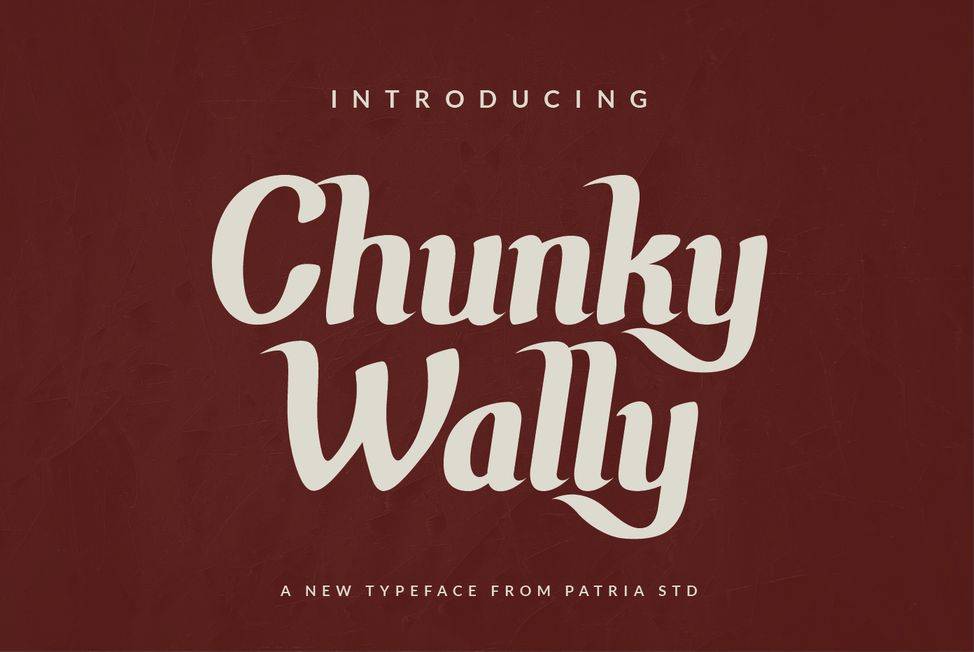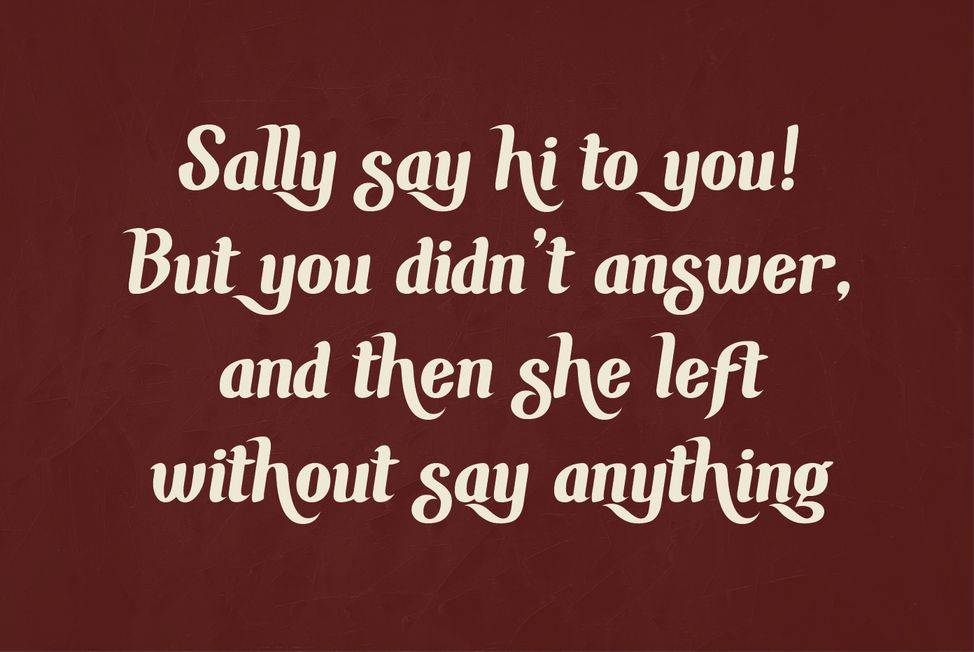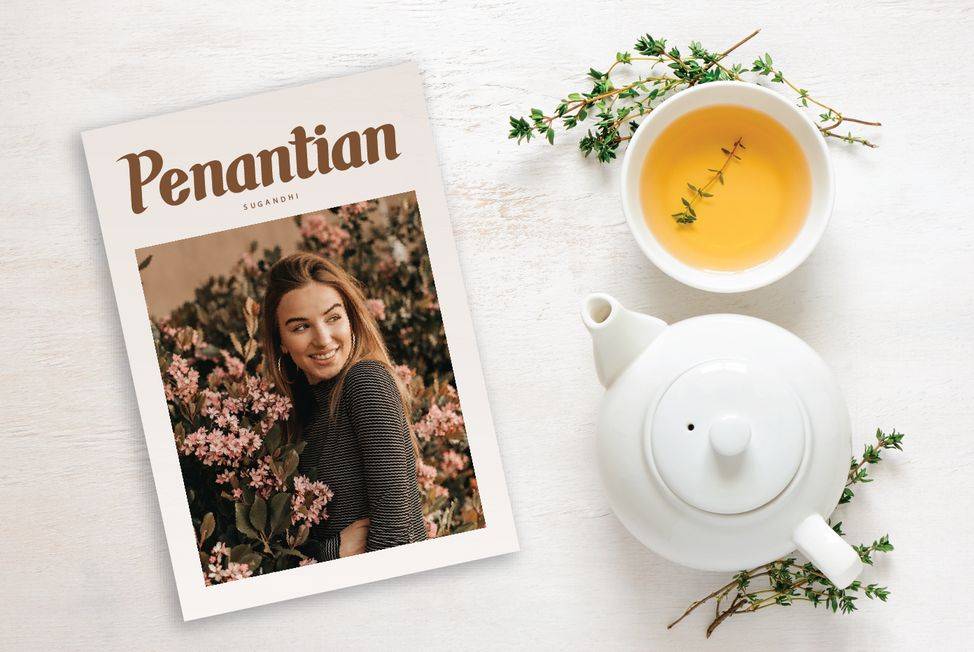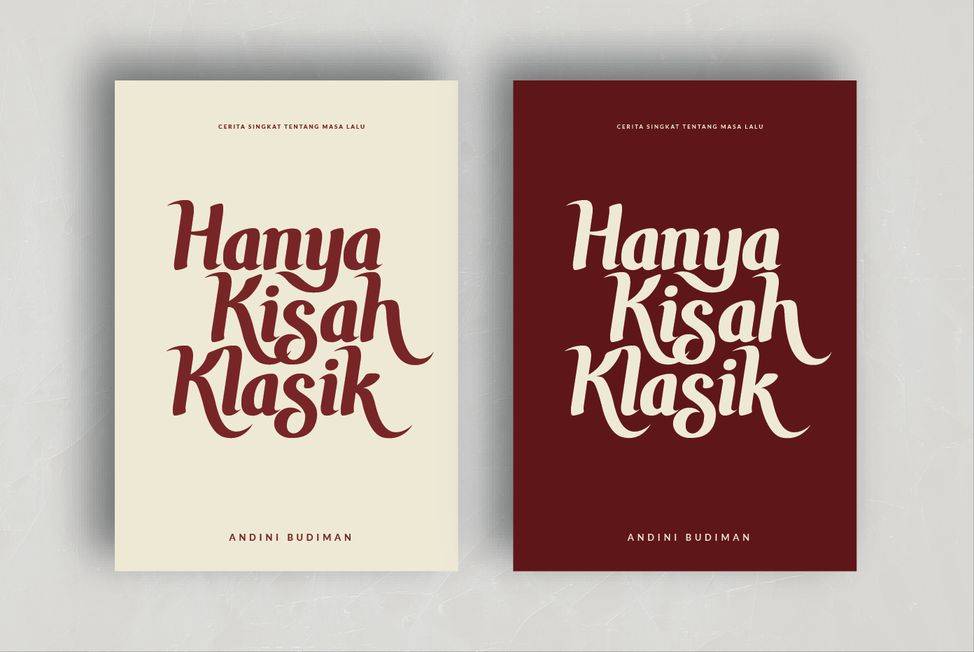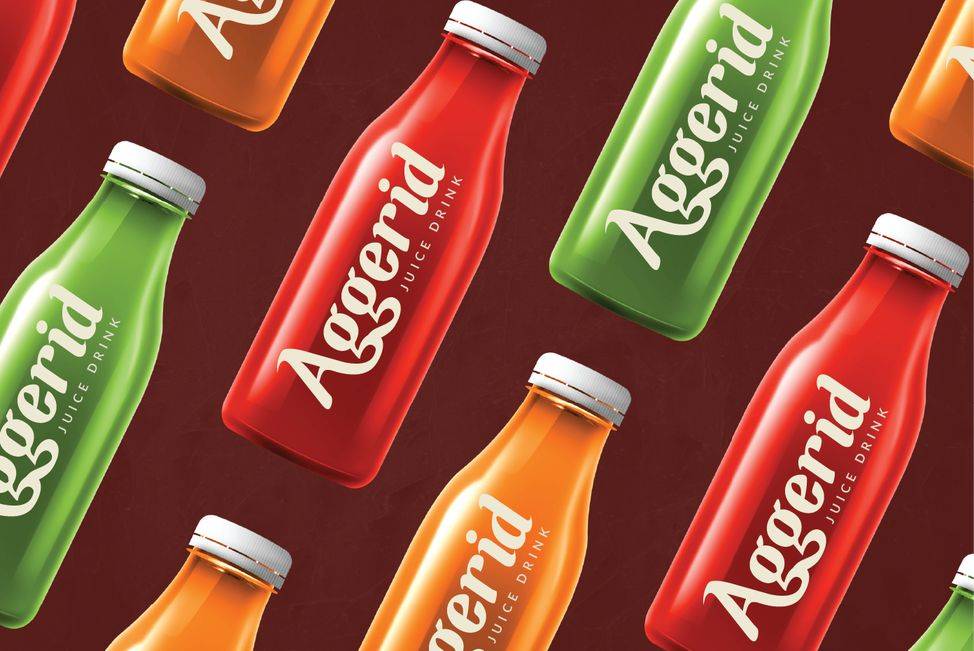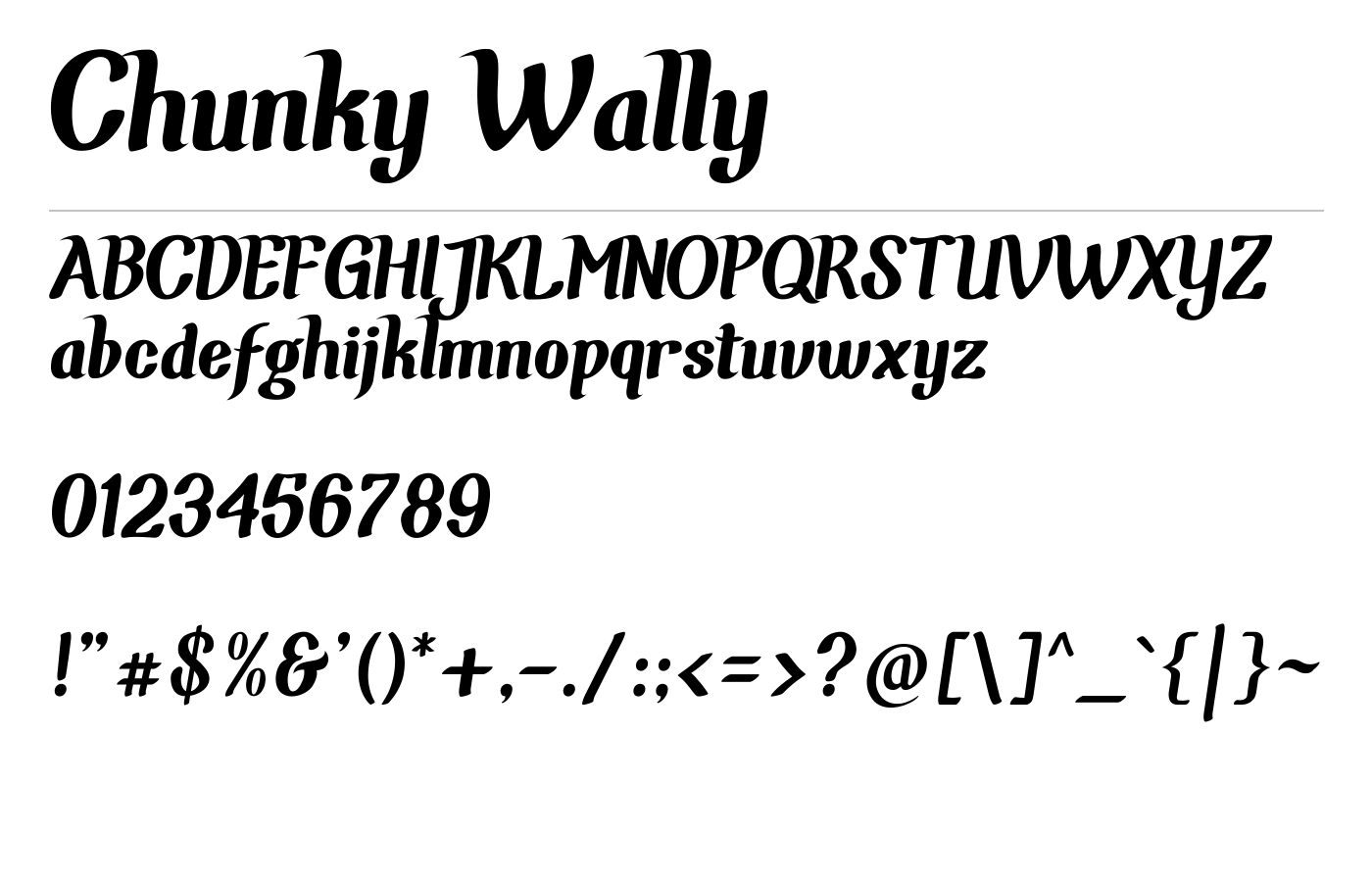
Chunky Wally is a bold, playful serif font with a distinctive brush-like texture that gives it a lively, hand-crafted feel. Its slightly condensed letterforms and moderate contrast make it ideal for eye-catching headlines, logos, and branding that want to convey warmth and creativity with a vintage twist. This font works beautifully in packaging and editorial design where a friendly yet confident personality is desired.
Chunky Wally Font
About Chunky Wally Font
| Font family | Chunky Wally Font |
| Designer | Patria Ari Wijonarko |